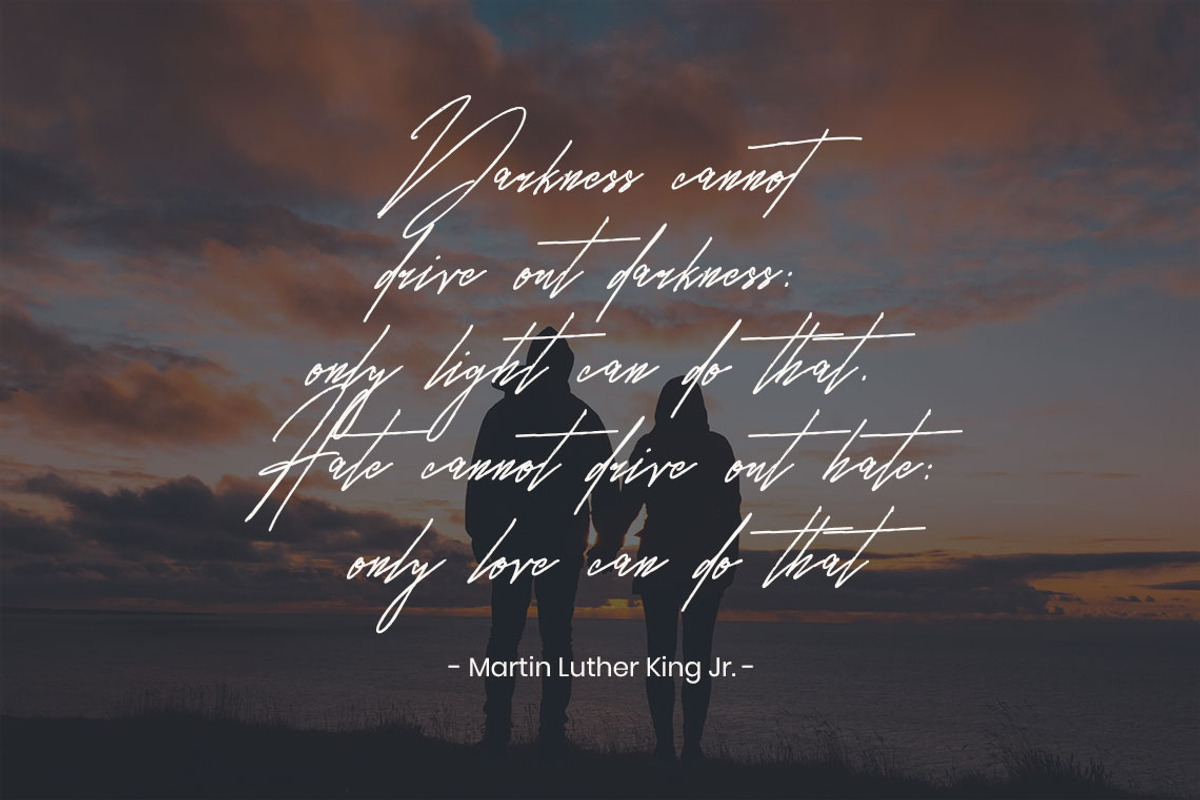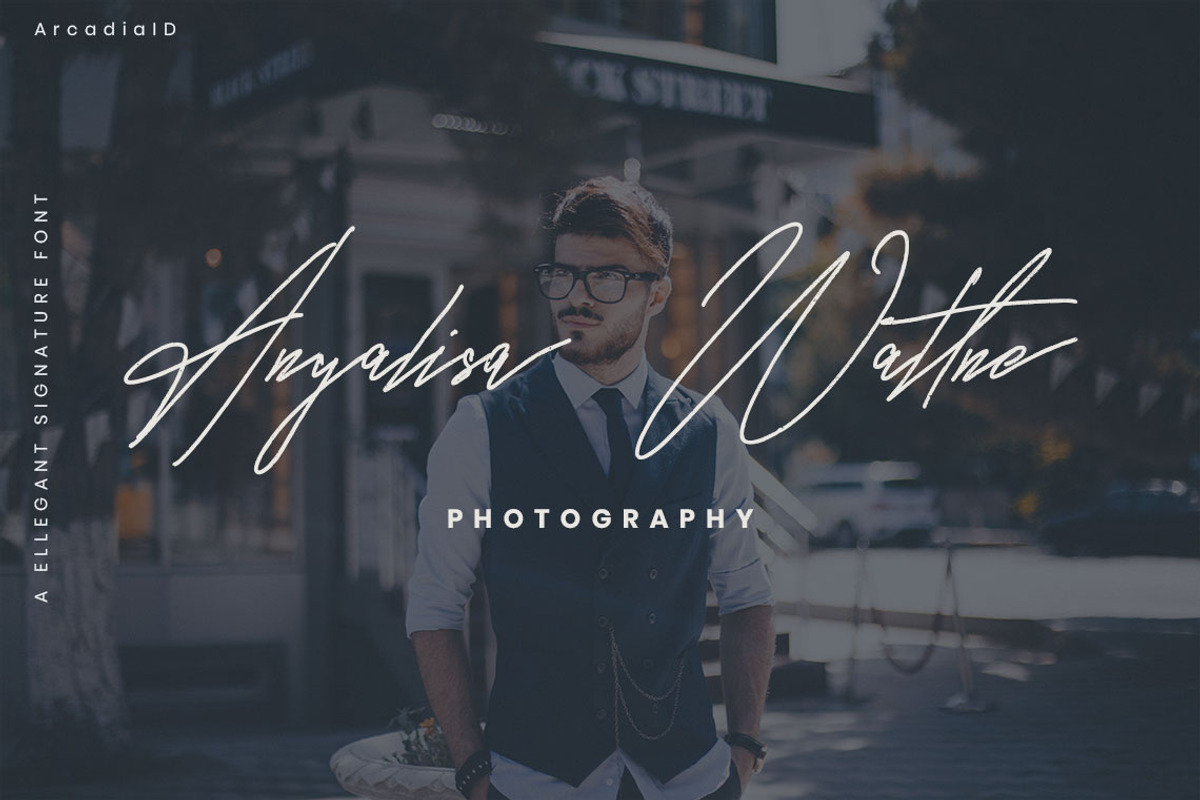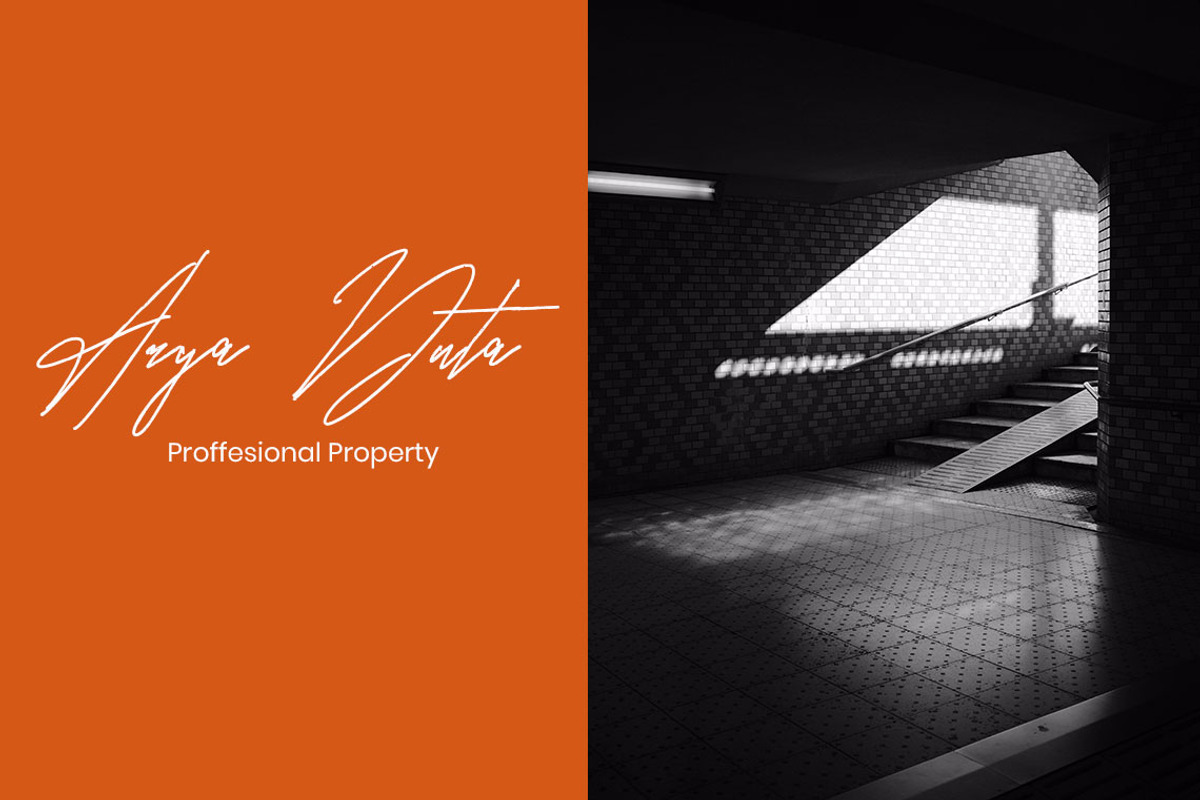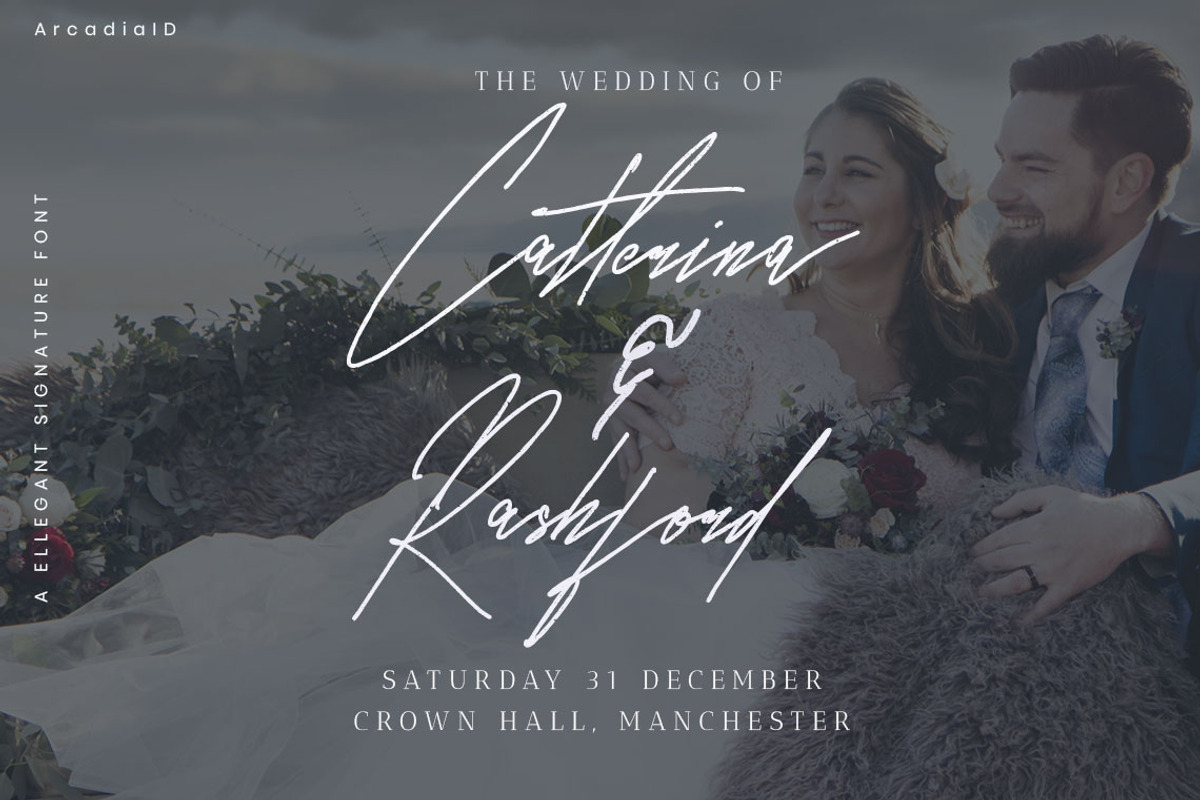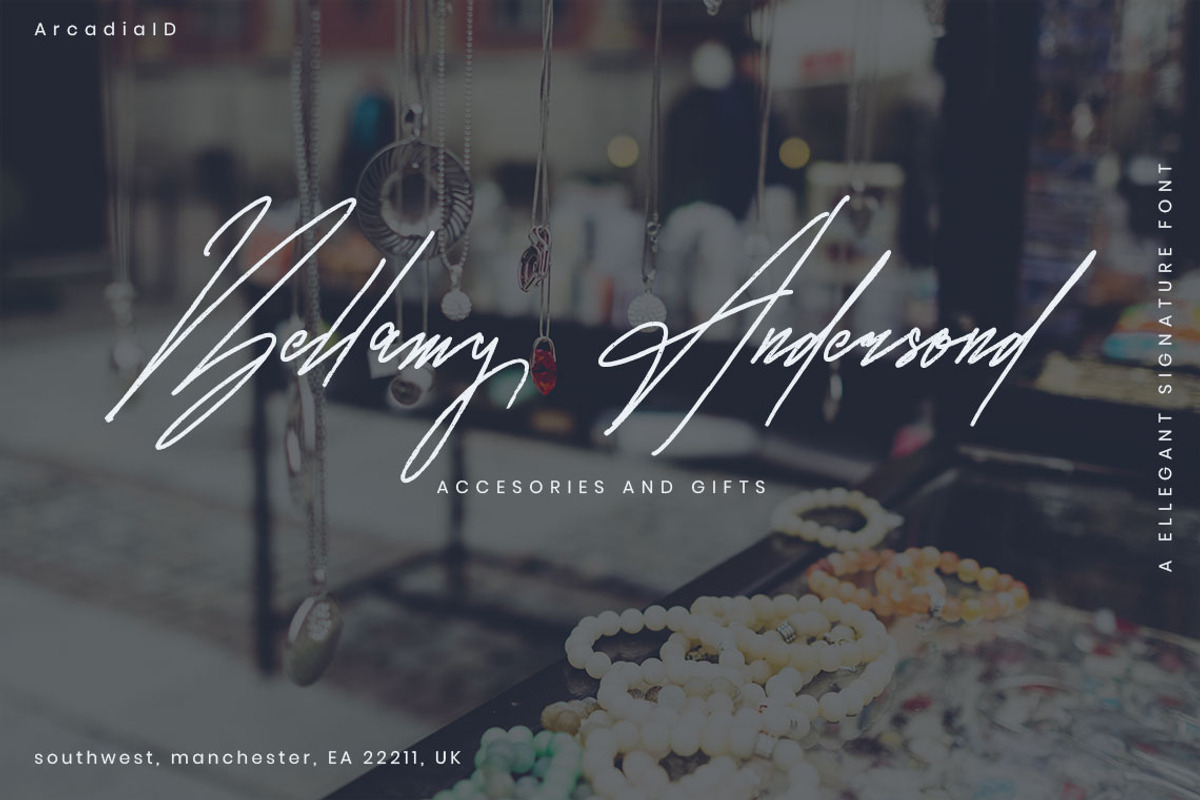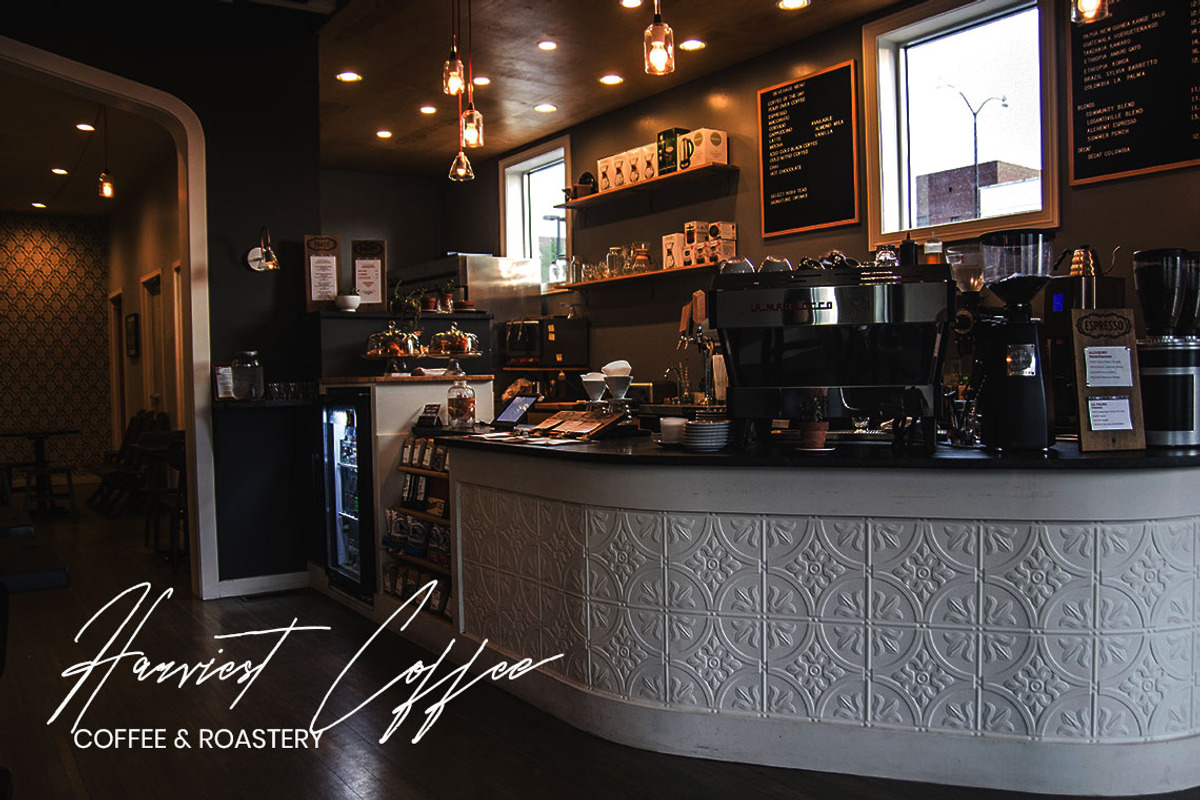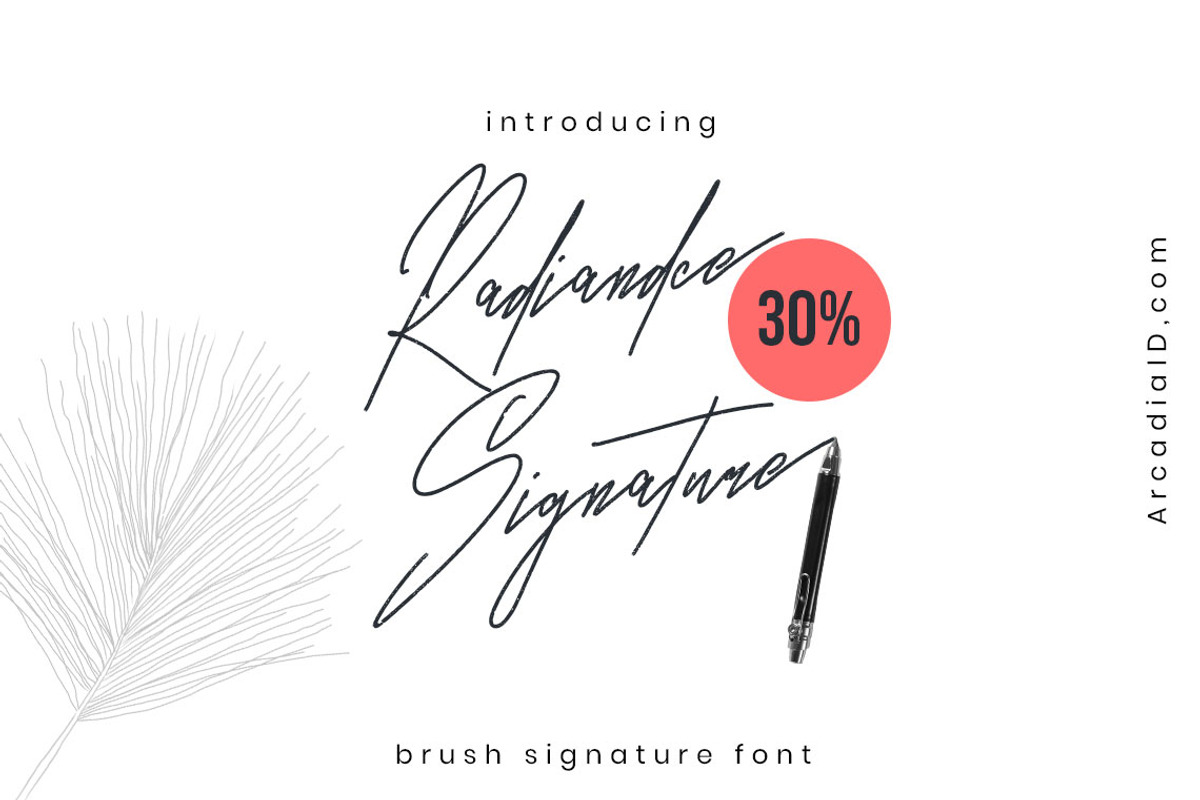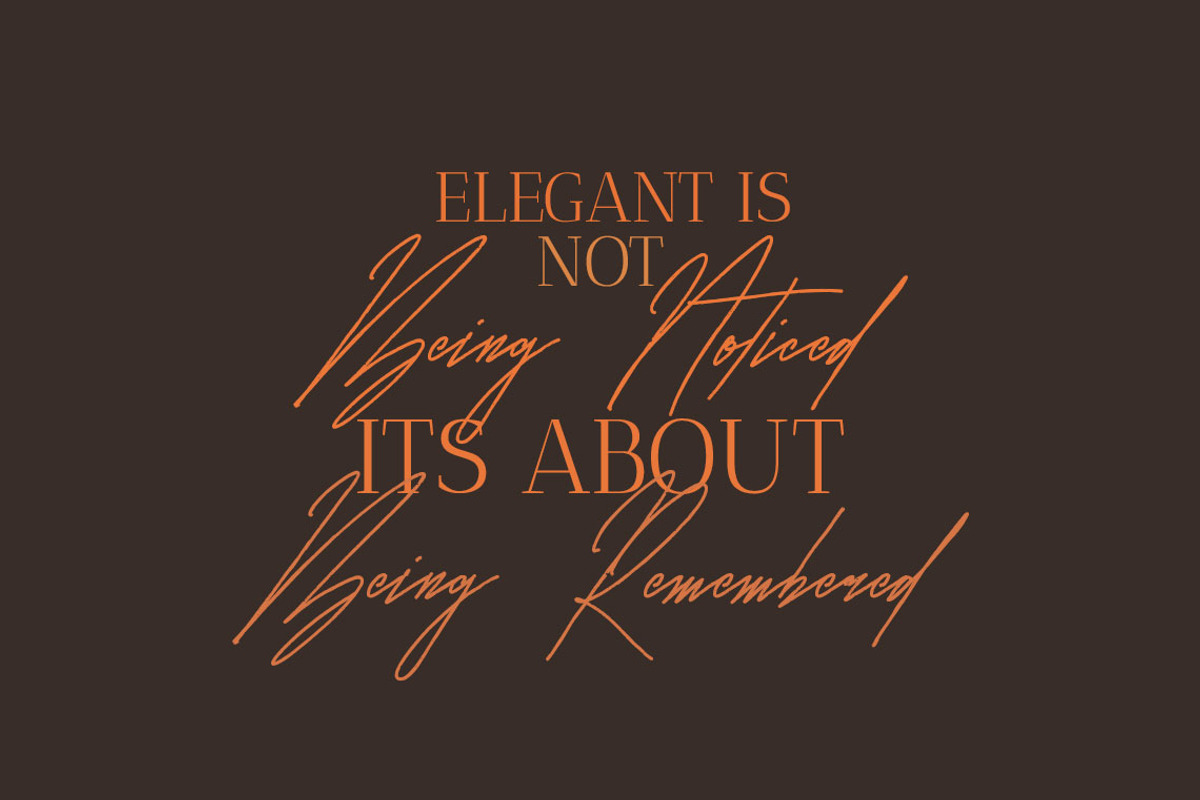
Radiandce | Brush Signature Font
Introducing Radiandce is a stylish Signature font with contemporary and sophisticated accents. It is perfect for logo/branding projects, large header text and product packaging.
- Alternates
- Multilanguange
- Radiandce Signature Regular
Why Radiandce | Brush Signature Font is worth a look
Radiandce | Brush Signature Font by Binary Std fits naturally into Branding, posters, packaging, typography.